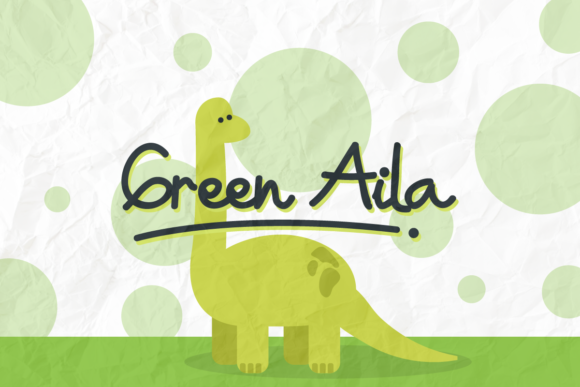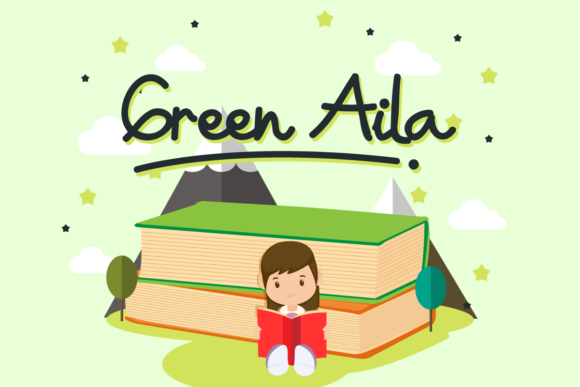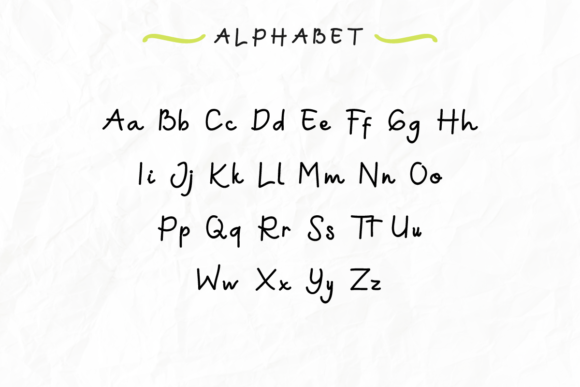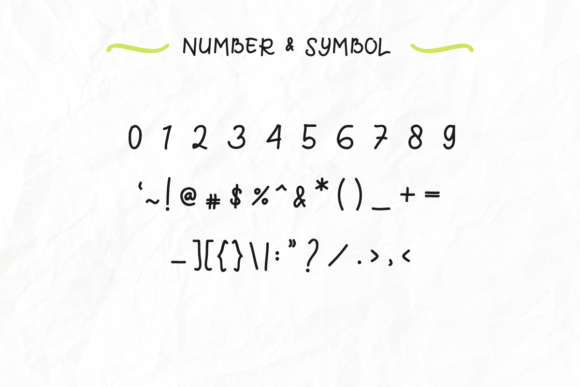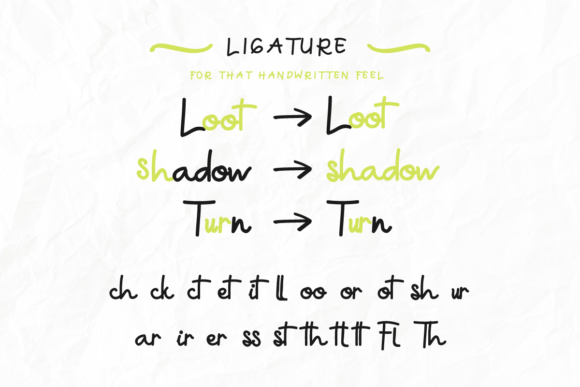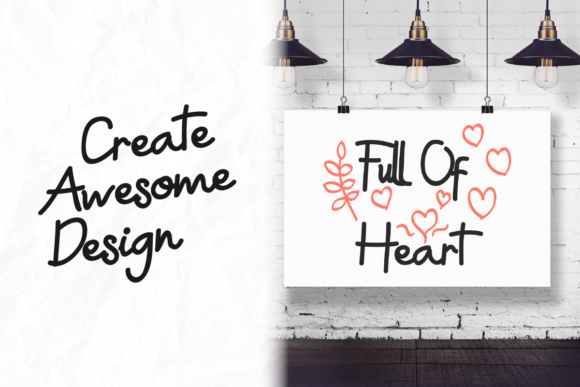
Introduction to Green Aila Font
Have you ever been brainstorming a creative project and suddenly, a burst of inspiration hits you? You envision a colorful, whimsical design that perfectly captures the mood of your idea. For designers, those moments are what make all the hard work worth it. And, what if you had the perfect tool to bring your vision to life?
Enter the Green Aila Font, a high-quality, comic-style handwritten font that’s sure to add a joyful spark to any project. With its cute and playful feel, this design resource is a must-have for anyone looking to create something truly unique and eye-catching. Whether you’re working on a children’s book, a social media campaign, or a personal blog, the Green Aila Font is the perfect addition to your toolkit.
Key Features of Green Aila Font
- High-quality design with a unique, modern aesthetic, perfect for creative projects
- Perfect for use in logos, branding, and other design elements, thanks to its clean and minimalist design
- Comes with a comprehensive character set, including international characters and punctuation marks
Honest Review: Green Aila Font
I recently stumbled upon the Green Aila Font, and I must say it’s been a game-changer for my creative projects. As a designer, I’m always on the lookout for high-quality fonts that can elevate my designs and communicate my message effectively.
One of the things I love about the Green Aila Font is its versatility. It’s perfect for a variety of creative projects, from logo designs to branding materials, and even for use as a display font. The font’s unique style and clean lines make it a great addition to any design resource.
- High-quality design: The Green Aila Font is expertly crafted, with attention to detail that’s evident in every aspect of the design.
- Transparent background: The font’s transparent background makes it easy to use on any background, giving designers more flexibility and creative control.
- Limited font styles: While the Green Aila Font is a great addition to any design resource, it’s worth noting that it only comes in a limited number of font styles.
- Not suitable for body text: Due to its display font style, the Green Aila Font is not ideal for use as body text.
Overall, I’m really impressed with the Green Aila Font. It’s a high-quality design resource that’s perfect for creative projects. While it may have some limitations, I think it’s definitely worth adding to your design library.
Tips for Getting the Most Out of Green Aila Font
To get the most out of the Green Aila Font, experiment with different font sizes, colors, and styles to create a unique look. Use the font in conjunction with other design elements to add depth and visual interest to your design.
The Green Aila Font is ideal for a variety of creative projects, including logos, business cards, and marketing materials. Its high-quality design and transparent background make it a versatile design resource for any project.